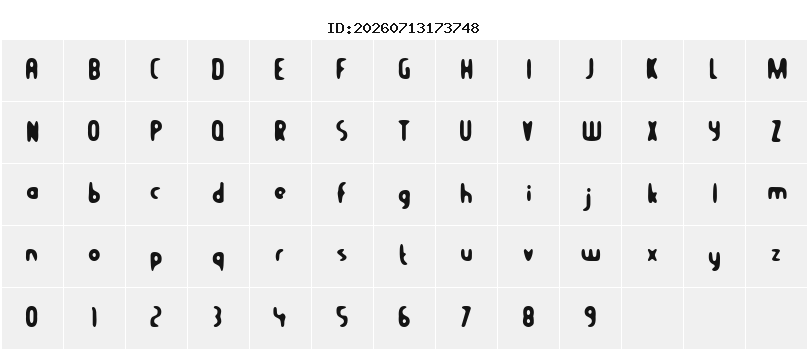
Balcony Angels Preview
• Font Name: Balcony Angels
• Font ID: larabie fonts Balcony Angels
• Full Font Name: Balcony Angels
• Version: Larabie Fonts 10/4/97
• PostScript Name: BalconyAngels
• Designer: Ray Larabie
• Manufacturer: Larabie Fonts
About Balcony Angels.ttf
Balcony Angels.ttf is a modern, elegant sans-serif font designed for ultimate readability and visual harmony. Perfect for branding, headlines, web design, and print materials.